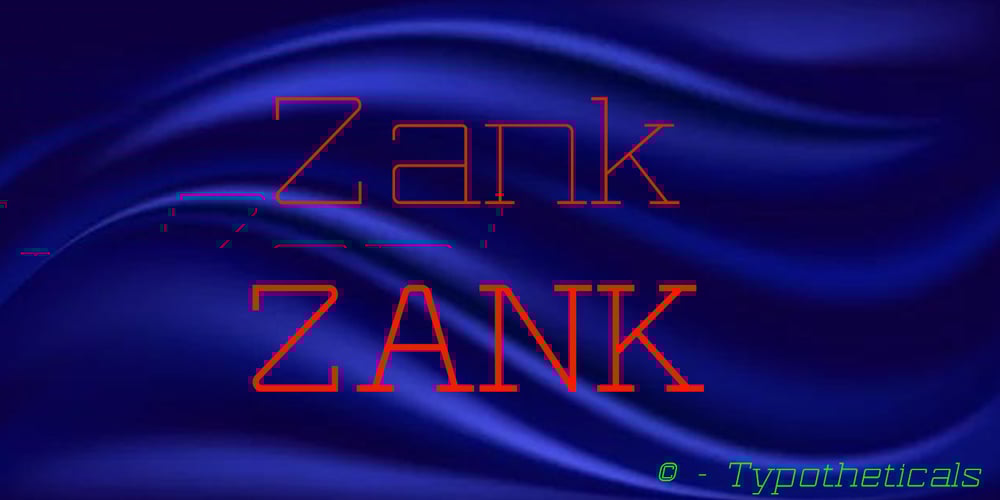
Zank
Zank font
Zank Font Family was designed by Graham Meade and published by Typotheticals. Zank contains 6 styles and family package options. Zank is a serif typeface designed by Graham Meade consisting of six styles.Along with the oblique (italic) version is the reversed oblique.